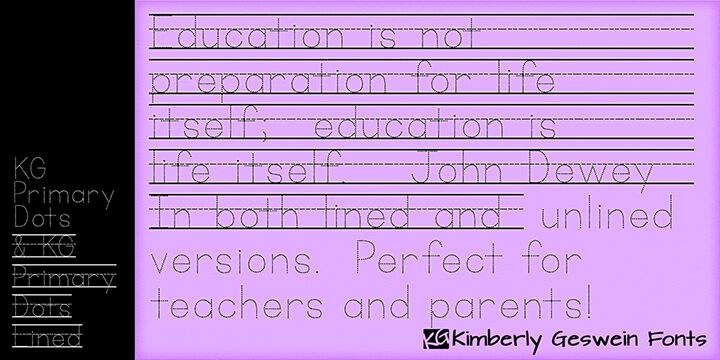
KG Primary Dots Lined by Kimberly Geswein is a free school handwriting font designed for guided letter-tracing practice. Its rounded print forms use evenly spaced dots, and the accompanying ruled lines mark clear upper, middle, and lower zones for learners working through basic letter proportions.
Handwriting worksheets are its clearest use, especially for exercises in which children trace words directly along classroom guidelines. It also suits classroom posters, activity books, and home-learning materials, where the dotted strokes turn each example into a practical exercise rather than ordinary display text. The design is most convincing when the lettering itself becomes the lesson.
Dotted letters are available in lined and unlined versions. On the lined version, typing with the spacebar creates blank lines.
KG Primary Dots Lined